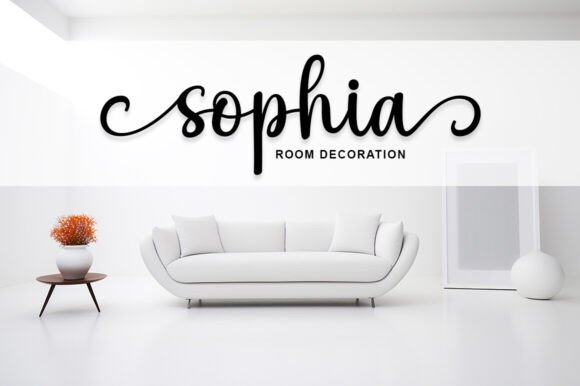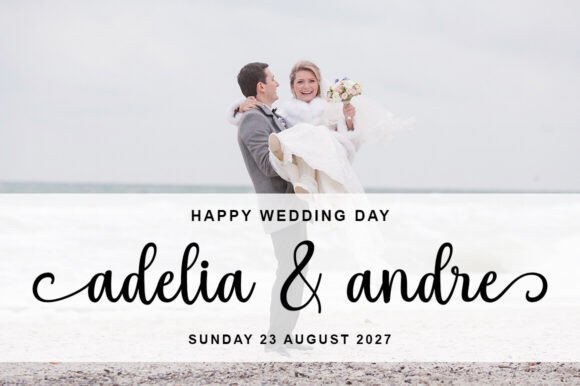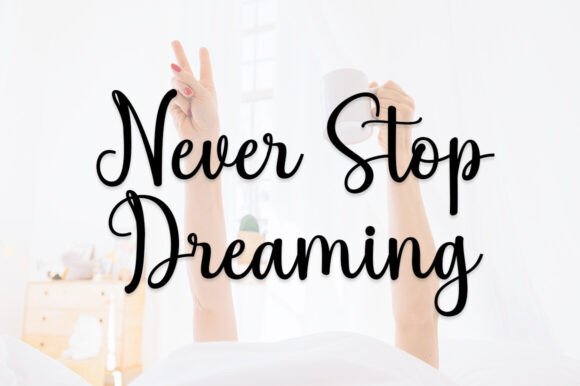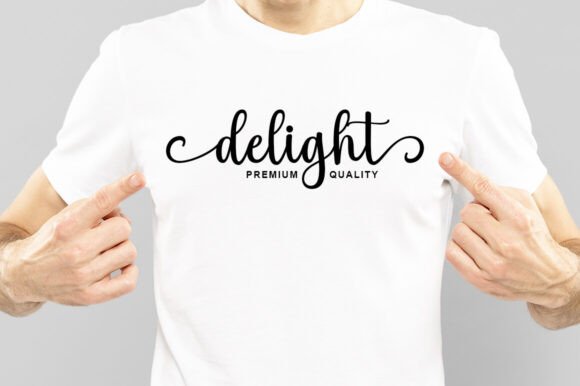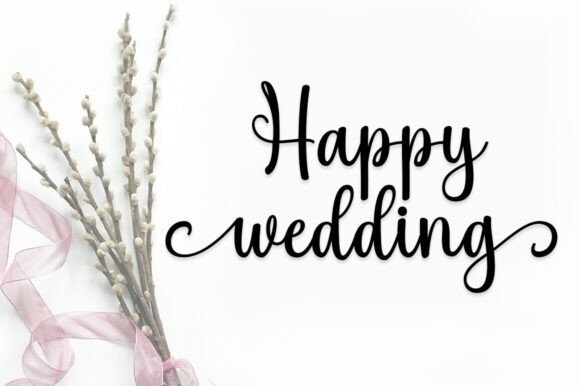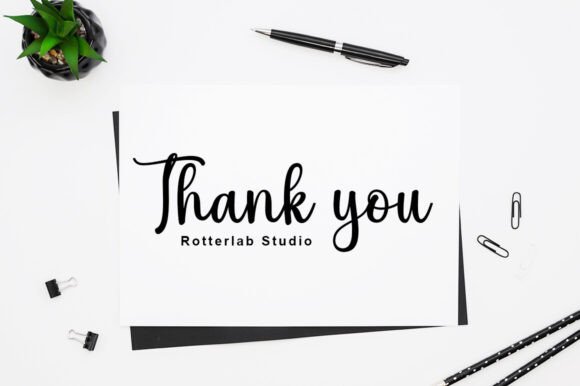
Introducing Angela Font: The Modern Script Font for Creative Designs
In the world of typography, fonts play a crucial role in conveying the tone and personality of a design. For designers and crafters looking for a trendy and feminine touch, Angela Script is a new modern script font that has taken the design community by storm. With its irregular baseline and elegant style, Angela Font is perfect for a wide range of creative projects, from wedding invitations to business cards.
What Makes Angela Font So Special?
Angela Script is a modern script font that boasts a unique and stylish irregular baseline, giving it a distinctive and eye-catching appeal. Its trendy and feminine style makes it an ideal choice for designers and crafters looking to add a touch of elegance and sophistication to their designs. Whether you’re creating wedding invitations, thank you cards, quotes, greeting cards, logos, or business cards, Angela Font is sure to impress.
Angela Font is a versatile font that can be used in a variety of creative projects. Here are some ideas to get you started:
- Wedding Invitations: Add a touch of elegance and sophistication to your wedding invitations with Angela Font. Its irregular baseline and feminine style make it perfect for formal and informal wedding designs.
- Thank You Cards: Express your gratitude with style using Angela Font. Its trendy and elegant design makes it ideal for thank you cards, gift tags, and more.
- Quotes: Add a touch of inspiration and motivation to your quotes with Angela Font. Its unique and stylish design makes it perfect for social media graphics, posters, and more.
- Greeting Cards: Create beautiful and eye-catching greeting cards for any occasion with Angela Font. Its feminine style and irregular baseline make it perfect for birthdays, holidays, and more.
- Logos: Use Angela Font to create a unique and memorable logo for your business or brand. Its trendy and elegant design makes it perfect for businesses looking to stand out.
- Business Cards: Add a touch of sophistication and elegance to your business cards with Angela Font. Its irregular baseline and feminine style make it perfect for professionals looking to make a lasting impression.
Features of Angela Font
Angela Font comes with a range of features that make it a versatile and practical choice for designers and crafters. Here are some of its key features:
- Initial and Terminal Letters: Angela Font includes initial and terminal letters, allowing you to create beautiful and unique designs.
- Alternates: The font also includes alternates, giving you more flexibility and creative control over your designs.
- Multiple Language Support: Angela Font supports multiple languages, making it a great choice for designers and crafters working on international projects.
Ideal for Ink and Watercolor Designs
Angela Font is perfect for use in ink and watercolor designs. Its elegant and feminine style looks stunning when paired with watercolor illustrations or ink illustrations. Whether you’re creating digital designs or hand-drawn illustrations, Angela Font is sure to add a touch of sophistication and elegance to your work.
In conclusion, Angela Font is a modern script font that is perfect for designers and crafters looking for a trendy and feminine touch. With its irregular baseline and elegant style, Angela Font is ideal for a wide range of creative projects, from wedding invitations to business cards. Its features, including initial and terminal letters, alternates, and multiple language support, make it a versatile and practical choice. Whether you’re working on ink or watercolor designs, Angela Font is sure to impress.